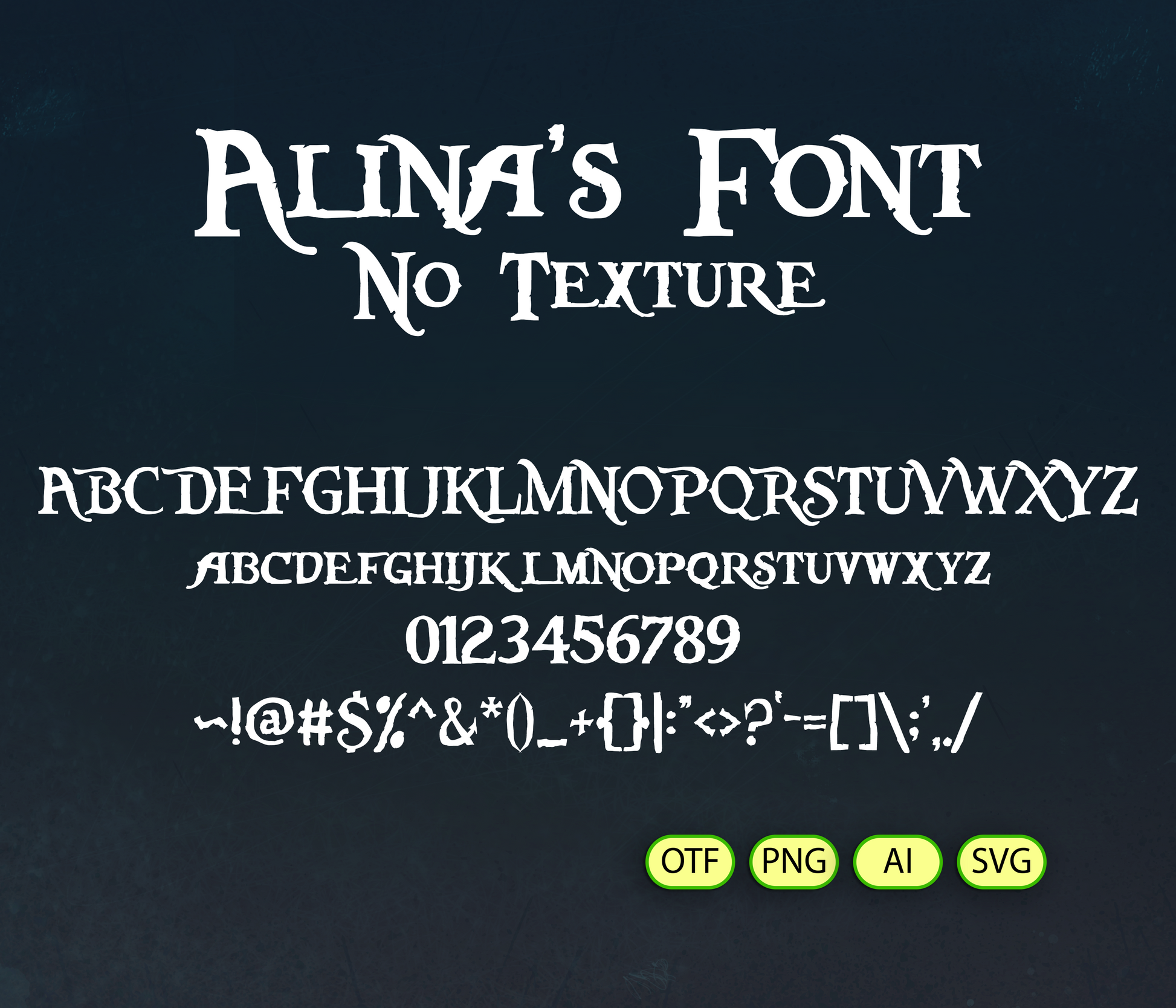
Caribbean Buccaneer Font
Step into the adventurous world of high seas plunder with our Caribbean Buccaneer Font, capturing the essence of nautical rebellion and treasure-hunting expeditions. Perfect for adventure fans, themed event planners, content creators, and creative professionals, this font brings the bold, swashbuckling spirit of seafaring outlaw stories to your projects. Create eye-catching invitations, merchandise, or digital content with the dramatic energy of oceanic adventure narratives.
Bold Typography for Fan Art Design & Themed Event Projects
Our Caribbean Buccaneer Font features dramatic, stylized letterforms with weathered textures reflecting the world of seafaring rogues and tropical island settings.
- Event Promotions: Create striking invitations, posters, and banners for themed parties, adventure conventions, and gatherings that capture the spirit of maritime entertainment
- Merchandise Design: Perfect for t-shirts, posters, stickers, and accessories that showcase the bold aesthetic of treasure-hunting themes
- Digital Media: Enhance websites, blogs, and social media with adventurous headers and graphics that express the thrill of seafaring journeys
- Creative Content: Add authentic flair to fan art, character designs, and creative projects inspired by nautical adventure tales
- Personal Projects: Bring swashbuckling energy to scrapbooking, DIY crafts, and home decor inspired by the world of daring seafaring characters
Our font pays tribute to the world of nautical adventure stories and seafaring cinema, empowering your projects with its bold and swashbuckling spirit. Whether crafting fan materials, designing themed products, or adding an adventurous touch to personal projects, this font communicates the vibrant essence of maritime entertainment. Ready to inject oceanic excitement into your creations? This font is your key to striking, impactful design.